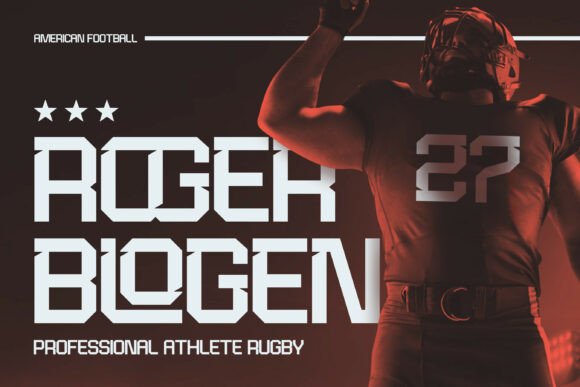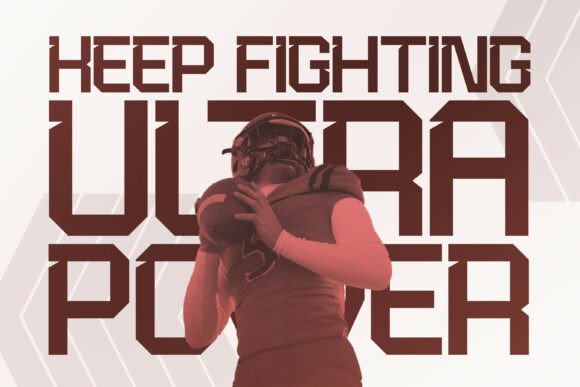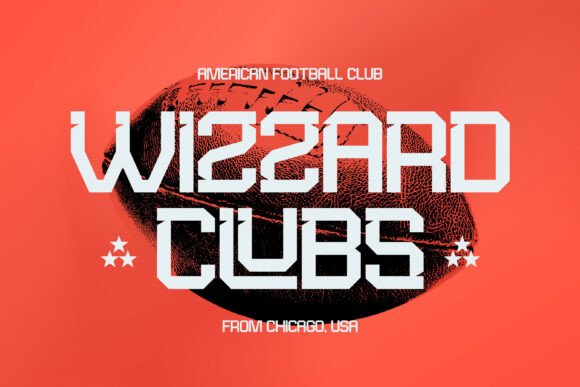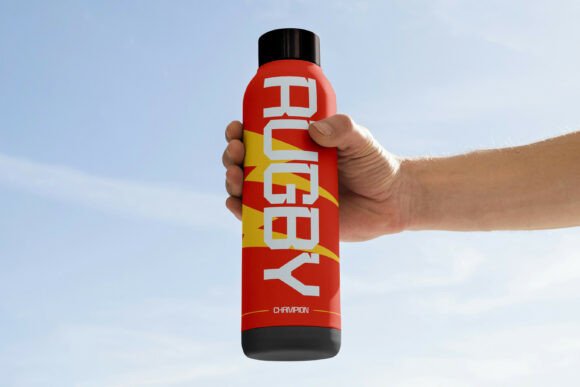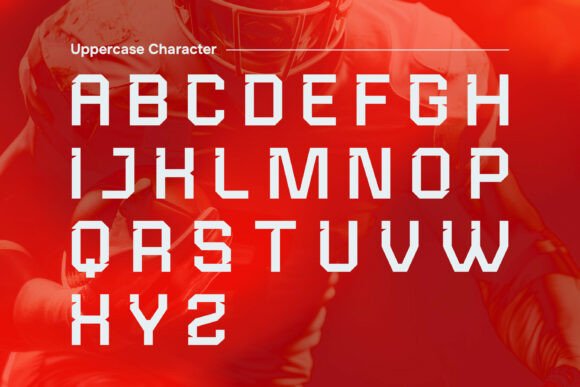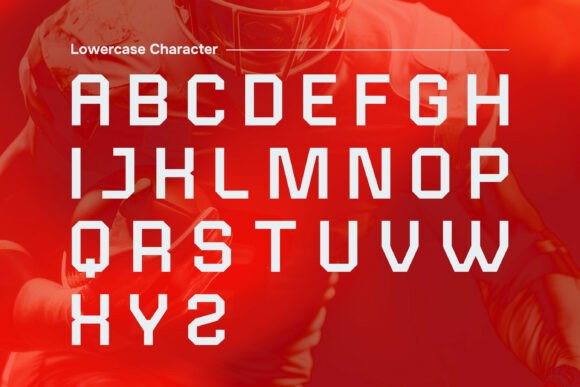
Introduction to Clashlab Font
Imagine you’re in the midst of a high-stakes competition, the crowd is on the edge of their seats, and the tension is palpable. The thrill of victory is just moments away, and the right typography can make all the difference in capturing that electric atmosphere. This is where the Clashlab Font comes in – a modern sport display font that’s designed to deliver bold energy and a strong competitive edge.
As a designer, you’re always on the lookout for that perfect font to elevate your creative project. With its sharp cuts, solid structure, and dynamic letterforms, Clashlab Font is a valuable design resource that can add a high-quality touch to your work. Whether you’re working on a sports-themed project or just want to inject some excitement into your design, Clashlab Font is a free download that’s sure to impress. Its clean yet aggressive style ensures readability while maintaining a striking and confident presence, making it perfect for large-scale typography and transparent backgrounds.
Key Features of Clashlab Font
- Includes a range of characters, including uppercase and lowercase letters, numbers, and special characters.
- Designed to be highly legible at various resolutions, making it suitable for use in digital and print media.
- Perfect for designers, artists, and creatives working on a wide range of projects, from branding and advertising to graphic design and publishing.
Honest Review: Clashlab Font
As a designer, I’m always on the lookout for high-quality design resources to enhance my creative projects. The Clashlab Font is one such resource that caught my attention. With a free download option, I was eager to see if it lived up to its promise.
- ✨ Unique and bold typography that adds a modern touch to designs
- ✨ Transparent background option for versatility in design projects
- ⚠️ Limited font styles and variations, which may not cater to diverse design needs
- ⚠️ Some users may find the font too bold or overpowering, depending on the design context
Overall, I think the Clashlab Font is a great addition to any designer’s toolkit, especially for creative projects that require a modern and edgy look. While it may have some limitations, its unique typography and high-quality font files make it a worthwhile resource to explore.
The Clashlab Font is a high-quality design resource perfect for creative projects. With its unique style and versatility, it’s ideal for a variety of applications.
The Clashlab Font is available for free download and can be used with a transparent background, making it perfect for any creative project. Tips for getting the most out of the Clashlab Font include using it with a bold and bright color scheme, and experimenting with different font sizes and styles.
Common use cases for the Clashlab Font include:
- Social media graphics and posts.
- Marketing materials and advertisements.
- Wedding invitations and party decorations.